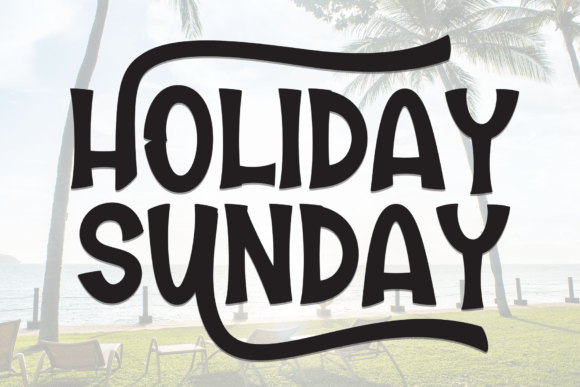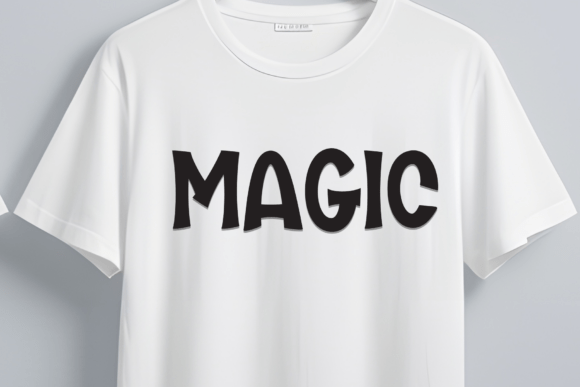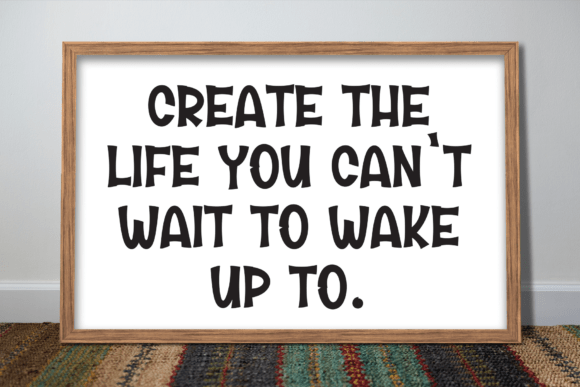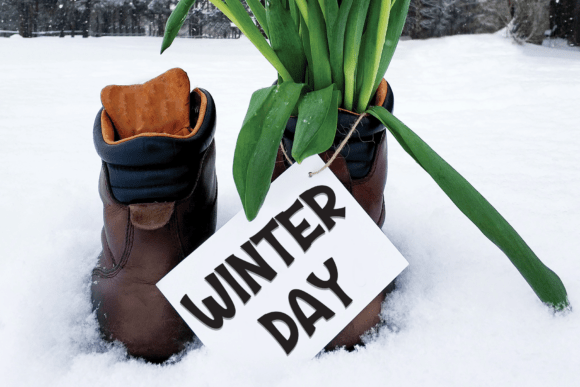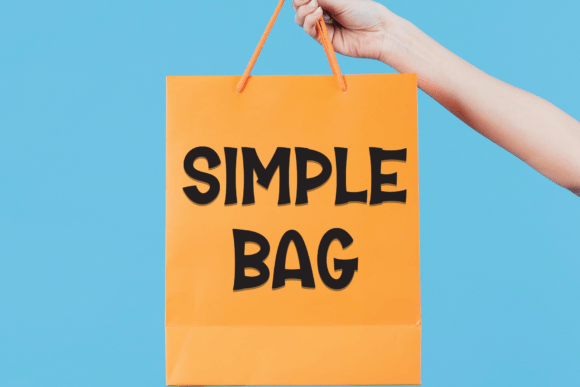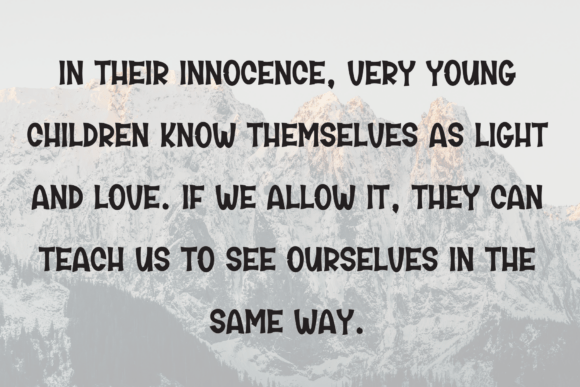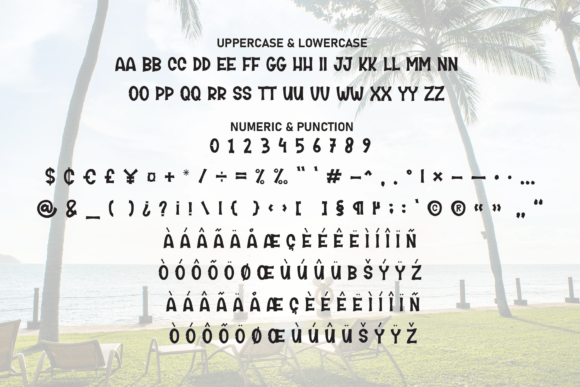
Enter Holiday Sunday Font, a delightful handwritten display font that brings a dash of joy and whimsy to any design project. Whether you’re crafting heartwarming wedding invites or alluring greeting cards, this charming font is sure to elevate your work and leave a lasting impression. With its unique blend of playfulness and warmth, Holiday Sunday Font is a valuable addition to any designer’s toolkit, making it an essential choice for anyone looking to add a touch of magic to their designs.
Holiday Sunday Font Key Features
- Unique Characteristics: Holiday Sunday Font features a unique blend of modern and traditional elements, with intricate details and ornaments that evoke a sense of nostalgia and festivity.
- Font Style: Holiday Sunday Font offers various font styles, including Regular, Italic, Bold, and Bold Italic, allowing designers to experiment with different looks and feels.
Review of Holiday Sunday Font
I recently had the chance to work with the Holiday Sunday Font, and I must say it’s an interesting addition to any design project. ✨ One of the things that stands out is the unique, handwritten feel that it brings to text. The font’s irregularities and imperfections give it a charming, personal touch that can be perfect for designs aimed at a more casual audience.
Another thing that works well for this font is its versatility. ✨ It can be used in a variety of contexts, from titles and headings to body text, and still manage to convey a sense of warmth and approachability. Additionally, the font’s OpenType features allow for some creative flair with ligatures, swashes, and ornaments.
However, there are some limitations to consider. ⚠️ For one, the font may not be suitable for designs where precision and consistency are crucial, such as in corporate branding or technical documentation. Additionally, the font’s irregularities can sometimes make it difficult to read, particularly at smaller font sizes.
- Works well for casual, creative projects
- Versatile and suitable for various design contexts
- OpenType features allow for creative flair
Overall, I would say that the Holiday Sunday Font is a great choice for designers looking to add some personality to their projects. While it may not be the best fit for every design task, it’s certainly worth considering for projects where a more relaxed, handwritten feel is desired.
For the best results, use the Holiday Sunday Font in bold or italic to add emphasis to your text. You can also pair it with other festive fonts to create a fun and playful design.
The Holiday Sunday Font is perfect for creating festive designs for:
- Holiday cards and invitations
- Seasonal marketing materials
- Fun and playful social media posts